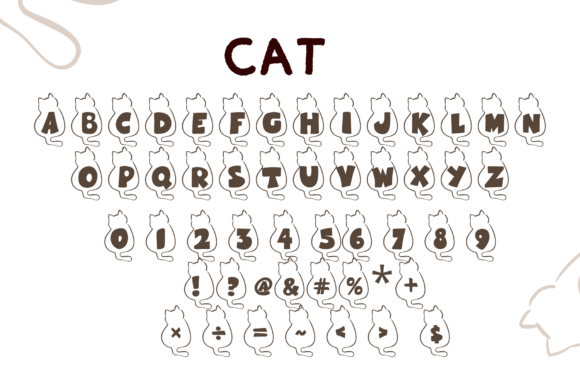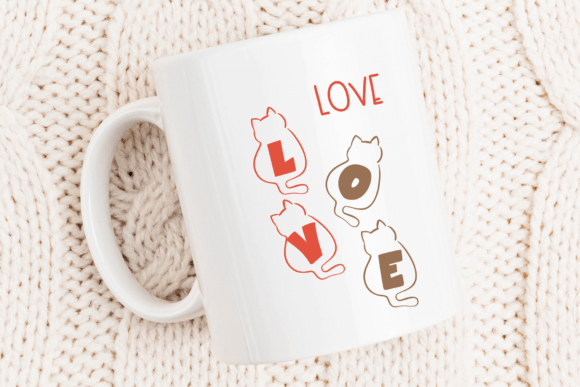
The Purr-fect Addition to Your Design: Cat Font
Have you ever sat at your desk, staring at a blank page, searching for that one spark of creativity to bring your design to life? It’s a feeling we’ve all experienced at some point or another. For designers, it’s about finding that unique element that sets their work apart from the rest. And that’s exactly where Cat Font comes in – a fun and decorative font that’s sure to bring a smile to your face.
Featuring letters designed to look like they’re written on a cat’s back, Cat Font is perfect for adding a playful and creative touch to your designs. Whether you’re working on a project for a pet-loving client or just want to inject some whimsy into your work, this font is sure to deliver. And with its versatility, you can use it for anything from social media graphics to branding and packaging.
Cat Font Key Features
- Font Family: Cat Font is a sans-serif font family designed specifically for digital use.
- Size: Cat Font comes in 8 weights, ranging from Thin to Black, with corresponding italic versions.
- Resolution: Designed for high-resolution displays, with optimal readability at 300 DPI and above.
- Unique Characteristics: Cat Font features a distinctive, modern design with a subtle cat ear-like flourish in the lowercase letters ‘a’, ‘c’, and ‘e’.
- Kerning and Ligatures: Includes expertly crafted kerning pairs and ligatures to ensure optimal text flow and readability.
Designer Review: Cat Font
Overall, I’d say Cat Font has some unique qualities that make it stand out, but it also has some areas where it falls short.
- The font’s quirky, playful nature makes it perfect for designs that need a lighthearted touch.
- The variety of cat-inspired characters adds a fun and whimsical feel to any design.
- The font is well-suited for digital use, with clear and crisp letterforms that are easy to read.
- The font’s eccentricity can be overwhelming in larger quantities, making it difficult to read.
- The character set is limited, which can be a problem for designs that require a wide range of characters.
- The font’s style can be a bit too ‘on the nose’ for some designs, making it feel like a gimmick rather than a legitimate design choice.
While Cat Font has some great qualities, it ultimately feels like a novelty rather than a fully-fledged design tool. It’s perfect for small projects or designs where a lighthearted touch is needed, but it may not be the best choice for larger or more complex projects.
Getting the Most Out of Cat Font
Some tips for getting the most out of Cat Font include:
- Experiment with different font styles and sizes to create a unique look.
- Use Cat Font in combination with other design elements, such as images and graphics, to add visual interest.
- Consider using Cat Font for headings or titles, as it can add a playful touch to your design.
Some common use cases for Cat Font include:
- Children’s book illustrations or covers.
- Food or pet-themed designs.
- Playful
Alternatives to Cat Font for Designers
Great Vibes is a beautiful, cursive font that exudes a sense of elegance and sophistication. It’s perfect for use in invitations, wedding cards, and other formal documents where a touch of whimsy is needed. While Cat Font is more playful and quirky, Great Vibes is a more refined and sophisticated alternative.
Crimson Text is a serif font that’s great for body text and is perfect for use in articles, books, and other long-form content. It’s a more serious and professional font compared to Cat Font, which makes it a great choice for business reports, academic papers, and other formal documents.
Playfair Display is a luxurious, high-end font that’s perfect for use in headings and titles. It’s a more dramatic and attention-grabbing font compared to Cat Font, which makes it a great choice for use in advertising, marketing materials, and other promotional content.